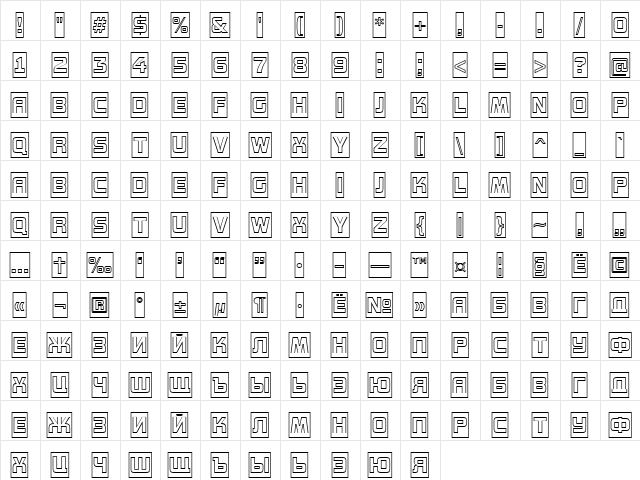
a_ConceptoTtlCmOtlNr Regular
Design Context for a_ConceptoTtlCmOtlNr Typeface
a_ConceptoTtlCmOtlNr is a composed and adaptable typeface that performs quietly and consistently across a wide range of design contexts.